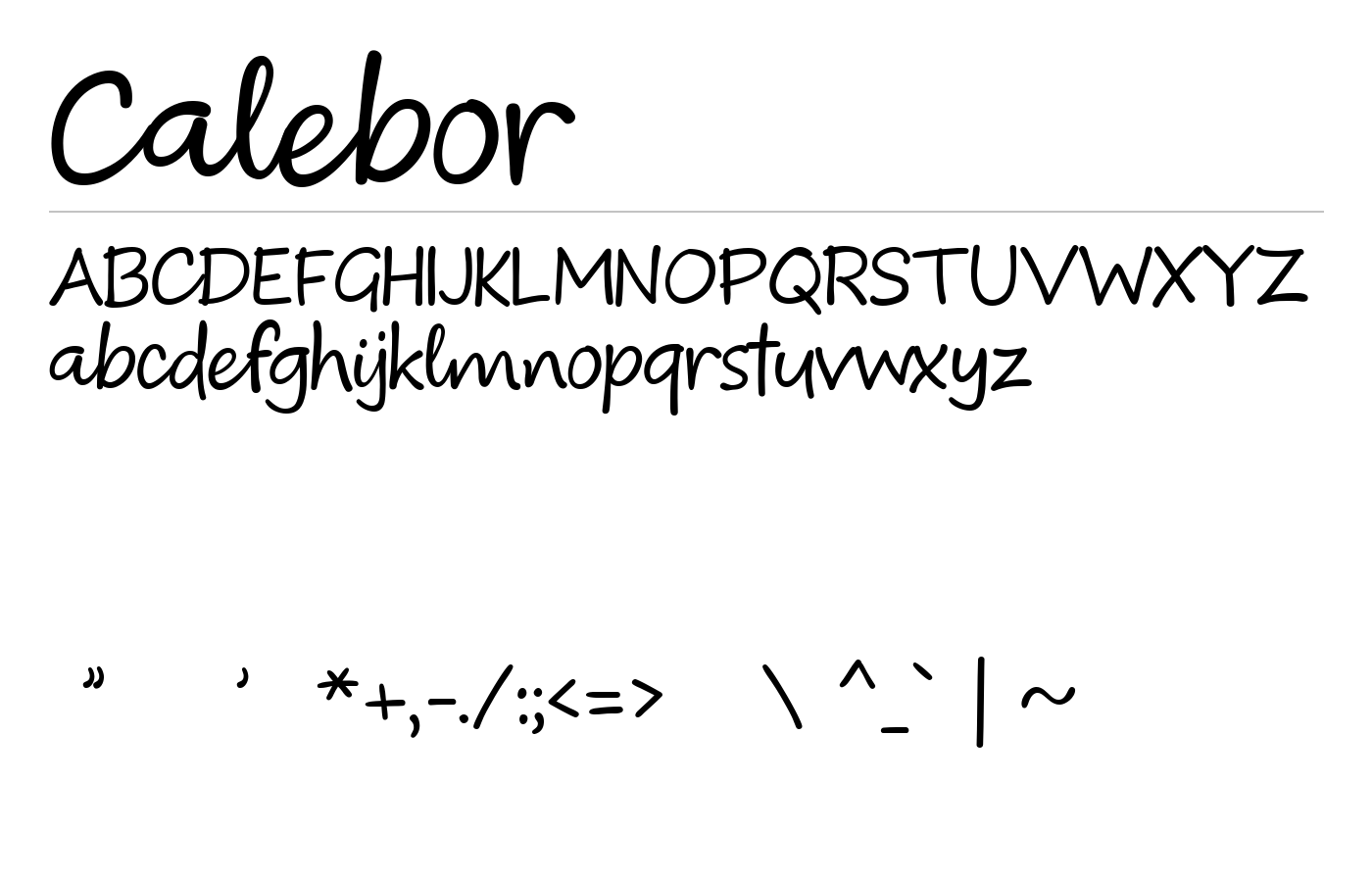
Calebor is a casual, handwritten sans serif font with a friendly and approachable vibe. Its smooth, slightly irregular strokes and medium x-height give it a natural, relaxed feel perfect for informal, creative projects like greeting cards, casual branding, and playful headlines. This font works best where a personal, warm touch is desired without sacrificing readability.
Calebor Font
About Calebor Font